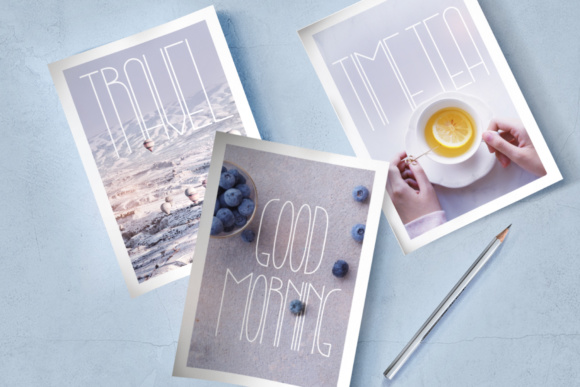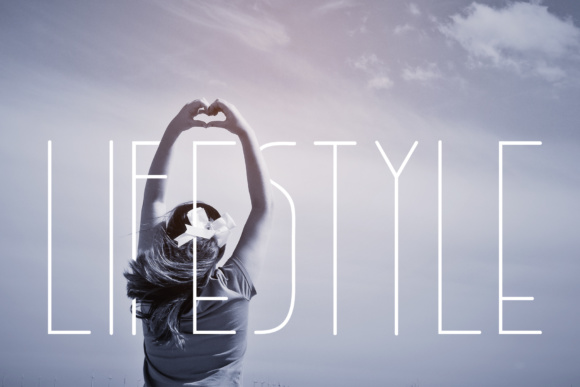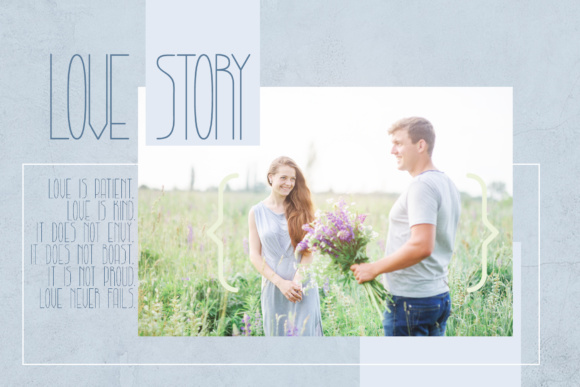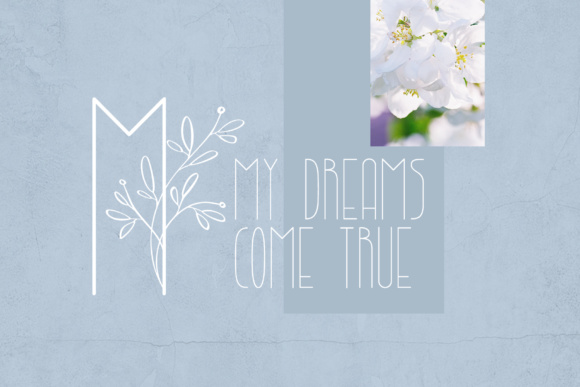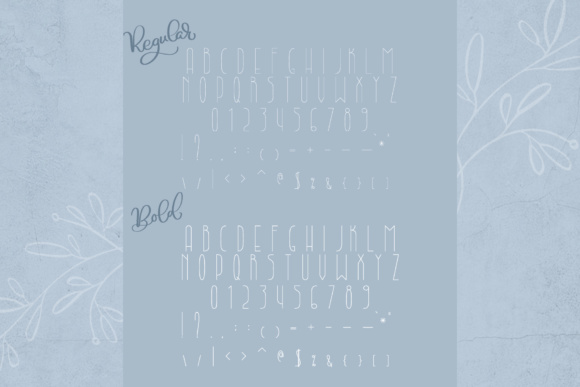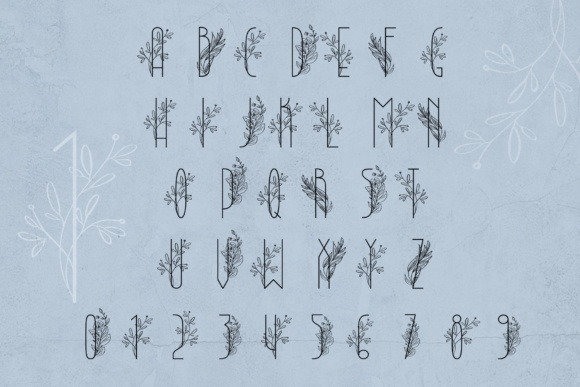
Introduction to Lightbon Font
Lightbon is a beautiful, well designed sans serif font.
This font – in two different weights – is ideal for use in displays, and can give your designs a stunningly antique appeal .
Key Features of Lightbon Font